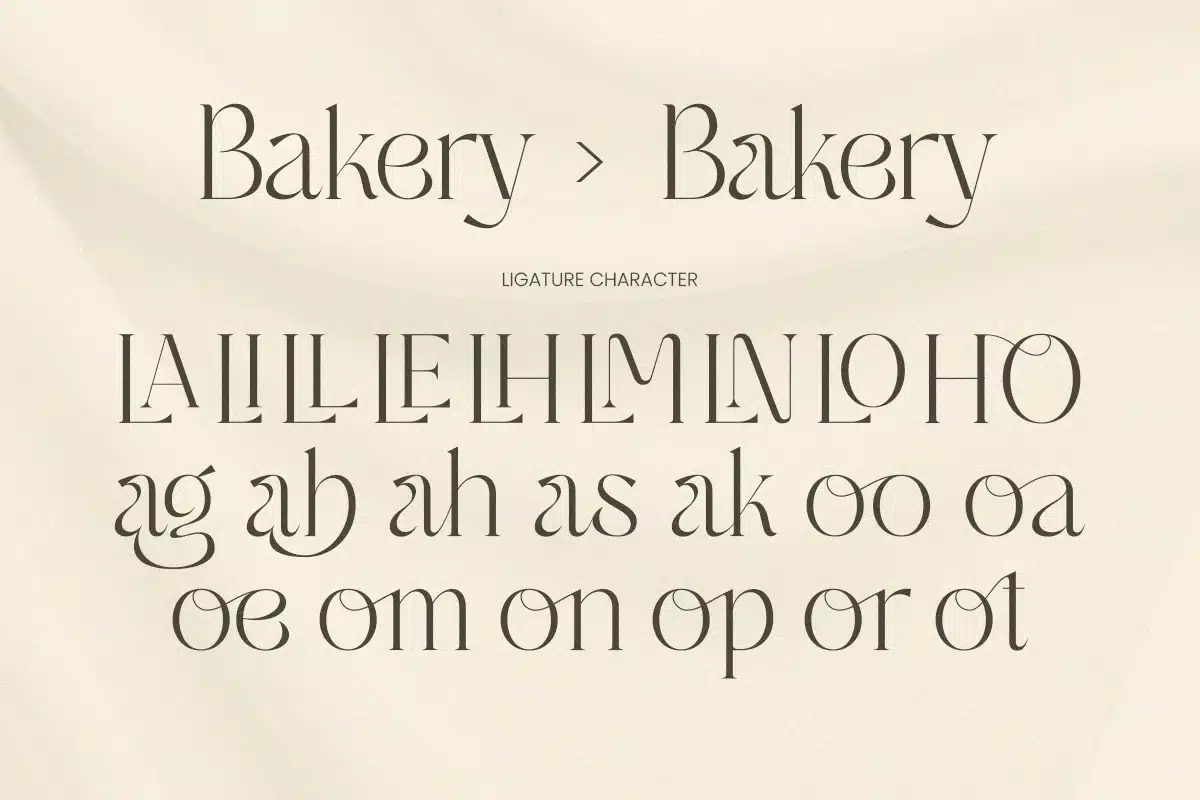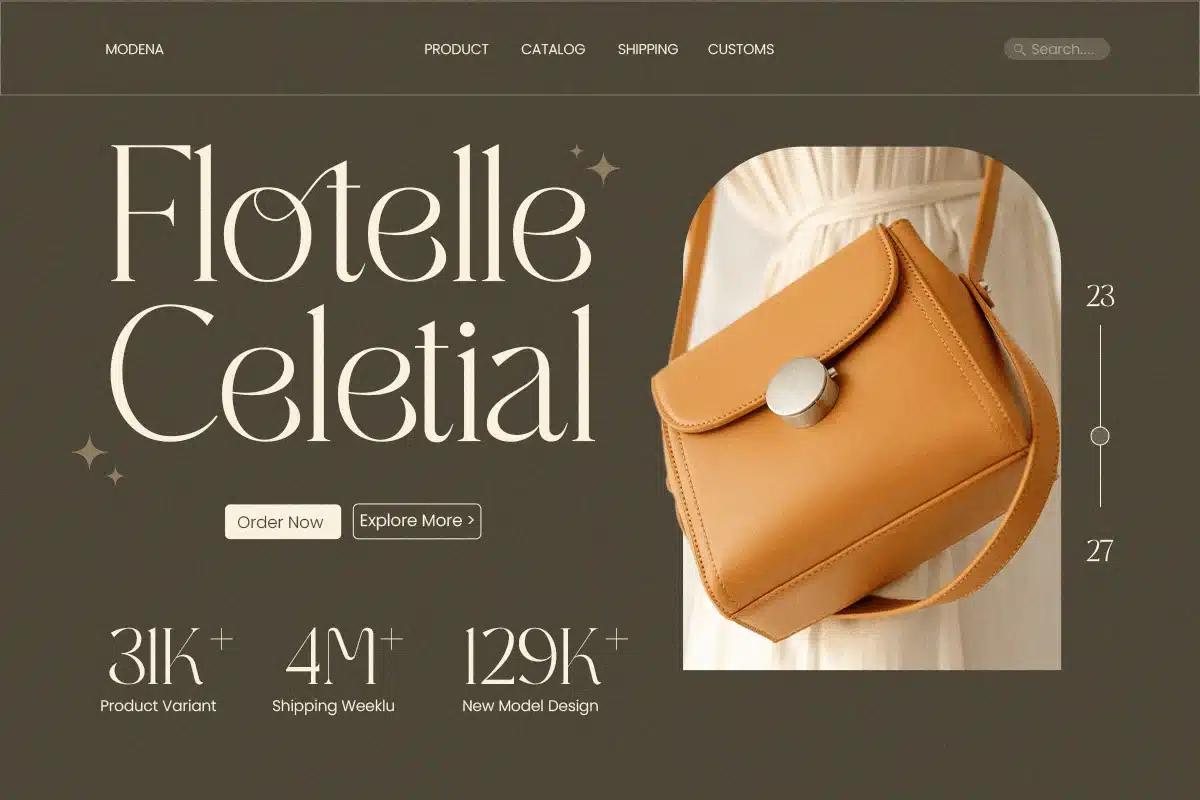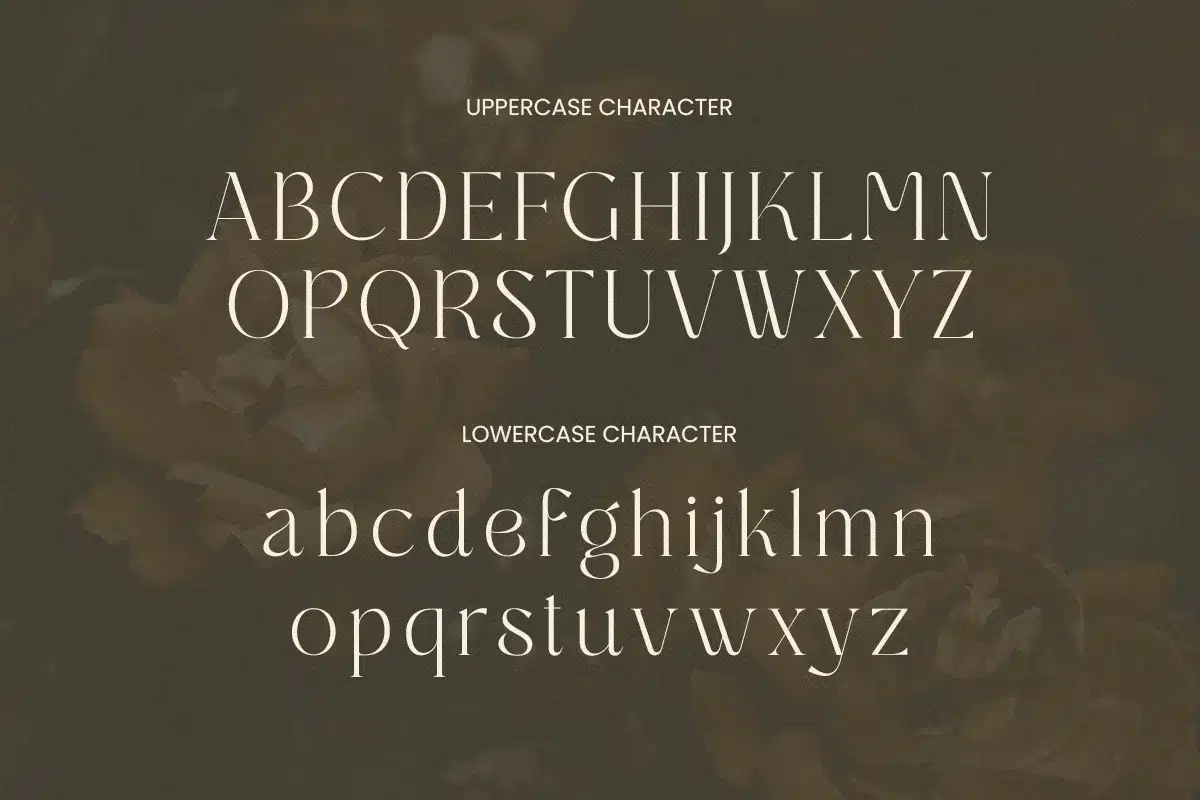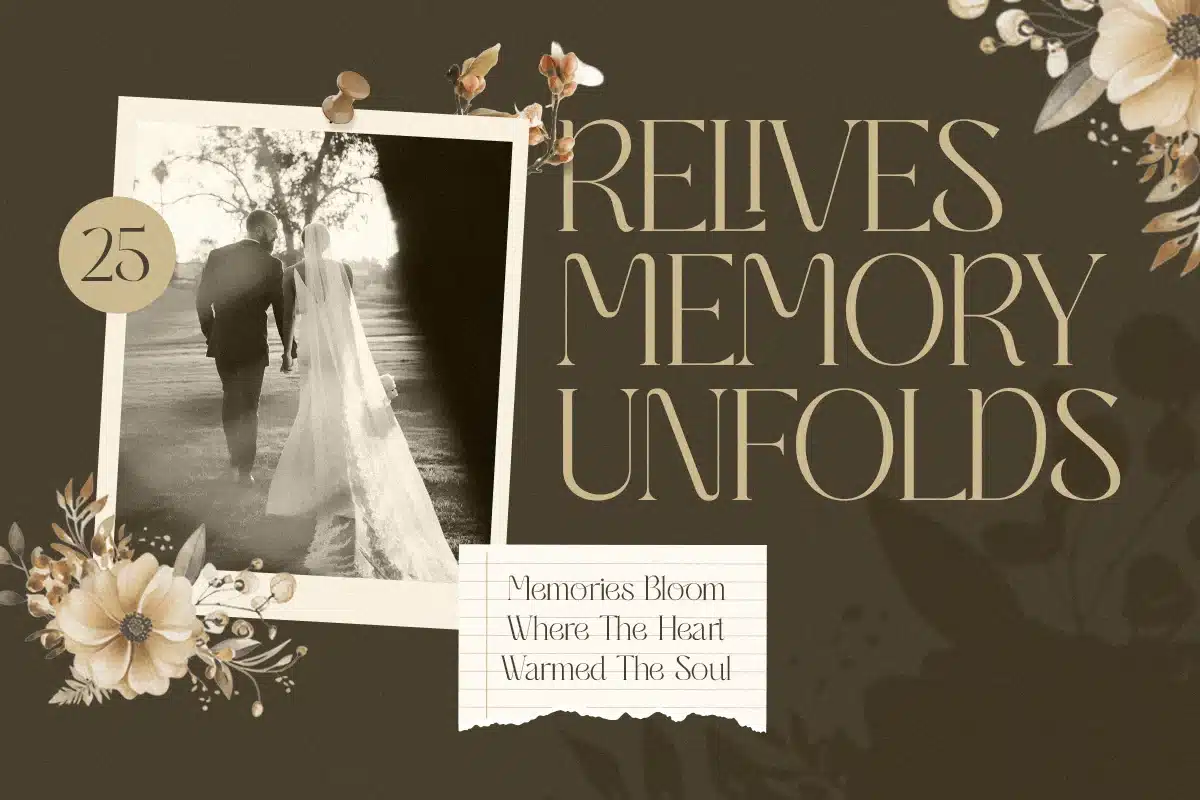
Magnus – Modern Elegant Branding Font
Magnus is a modern elegant branding font designed to deliver a refined, premium presence with contemporary clarity. Its polished forms and balanced structure create a sophisticated tone that feels confident, stylish, and brand-ready across high-end visual identities.
Built for logo design and modern brand systems, Magnus fits beautifully in fashion and beauty branding, boutique packaging, editorial headlines, website headers, signage, and social media campaigns. It brings a clean luxury feel that elevates layouts without overpowering the design.
Whether you are crafting a premium logotype, a modern editorial cover, or a cohesive identity system, Magnus provides elegant typography that keeps your brand consistent, memorable, and visually elevated.
Inspiration Behind Magnus
Magnus is inspired by modern luxury branding aesthetics - clean layouts, refined typography, and confident simplicity. The design focuses on elegance through structure, helping brands communicate professionalism and premium quality with a timeless modern edge.
Magnus Font Features
- Modern elegant letterforms with premium branding character
- Clean, refined structure for logo-focused typography
- Strong readability for display use and headlines
- Uppercase, lowercase, numerals, and punctuation
- OpenType features for polished typography control
- Luxury branding and modern logo design
- Fashion, beauty, and boutique identities
- Editorial headlines and magazine layouts
- Packaging, labels, and premium product design
- Website headers and social media campaigns
Elevate premium brand identities with Magnus - crafted for modern elegance and confident branding presence. ✨